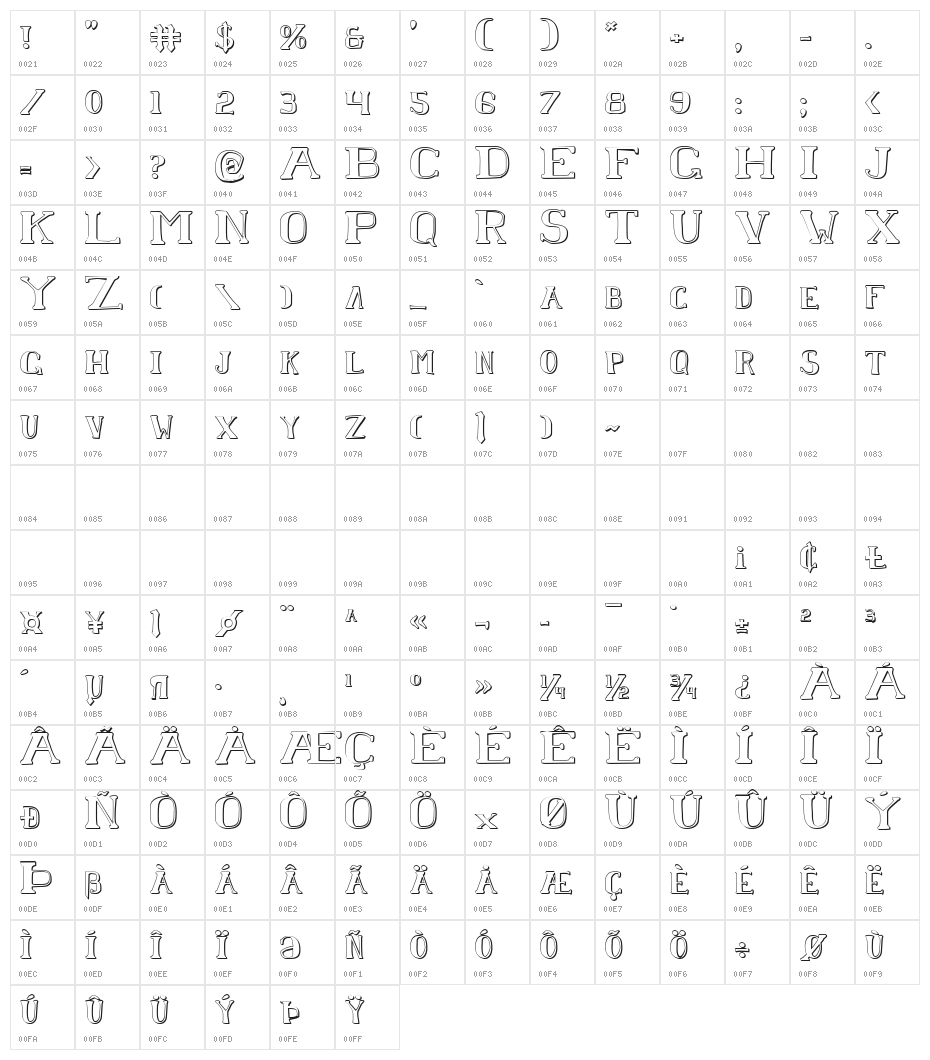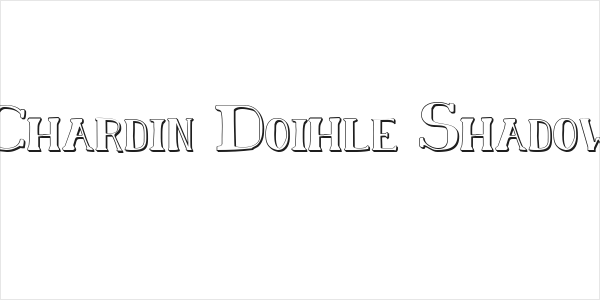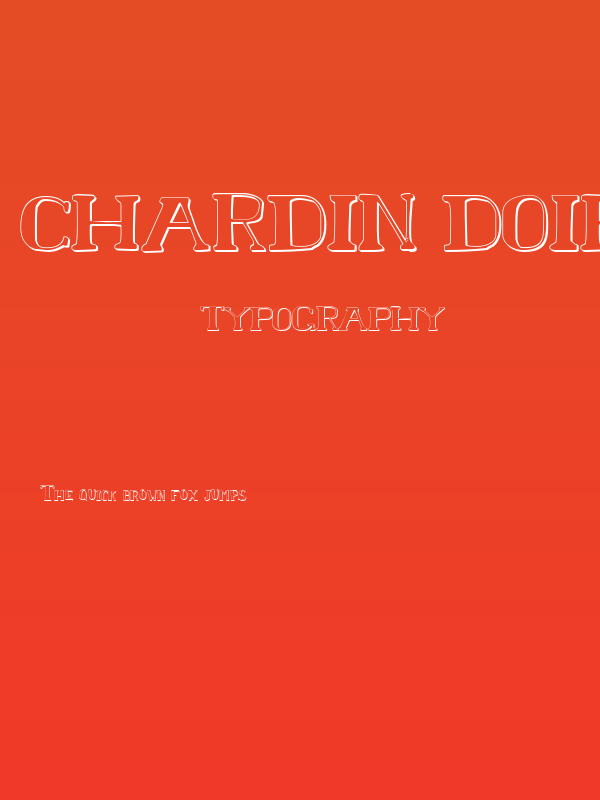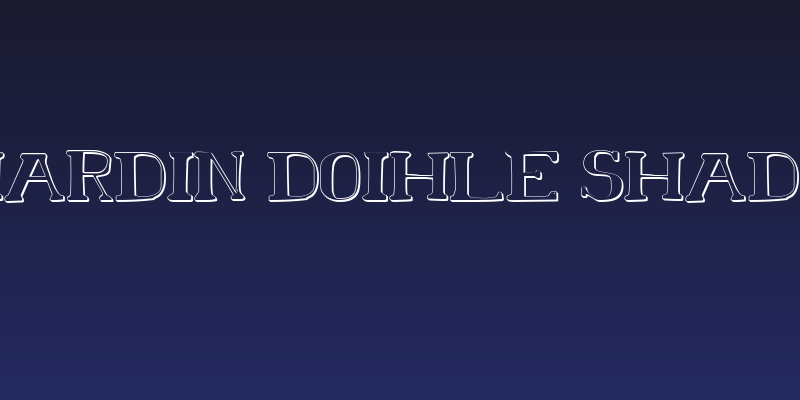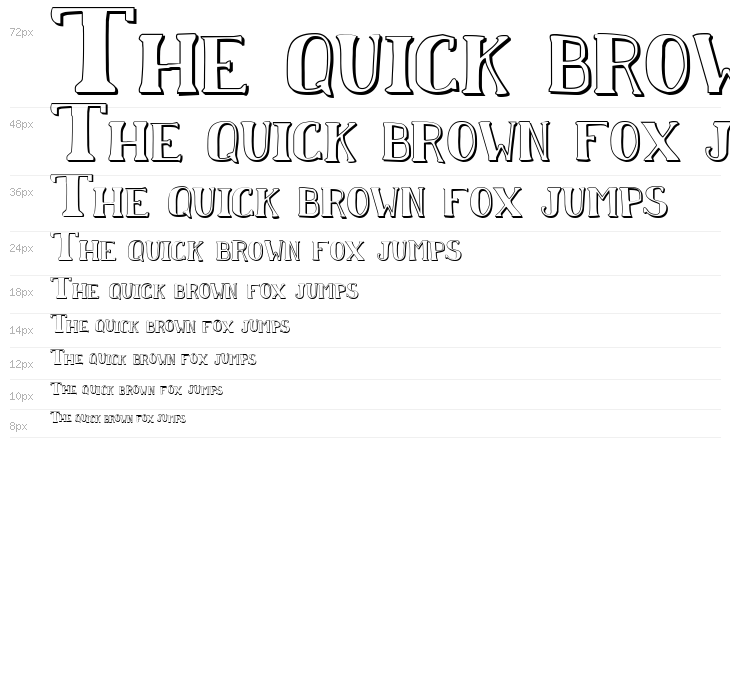
Chardin Doihle Shadow Font
Chardin Doihle Shadow Description
This font features a unique shadow effect that gives each character a three-dimensional appearance. The letters are bold and have a distinct outline that creates a sense of depth. The uppercase and lowercase characters maintain a consistent style, with clean lines and a modern aesthetic. The numbers and special characters are designed to match the overall look, ensuring a cohesive appearance across all text. This font is suitable for projects that require a bold and eye-catching typeface, such as posters, headlines, and branding materials.
| Proposed Projects | Ideal for posters, headlines, branding, and any design needing a striking visual impact. |